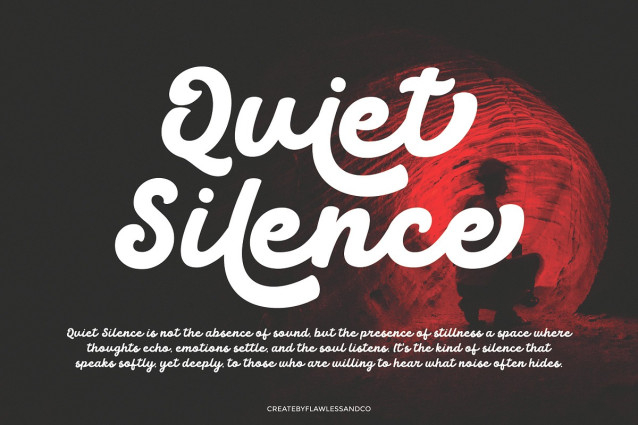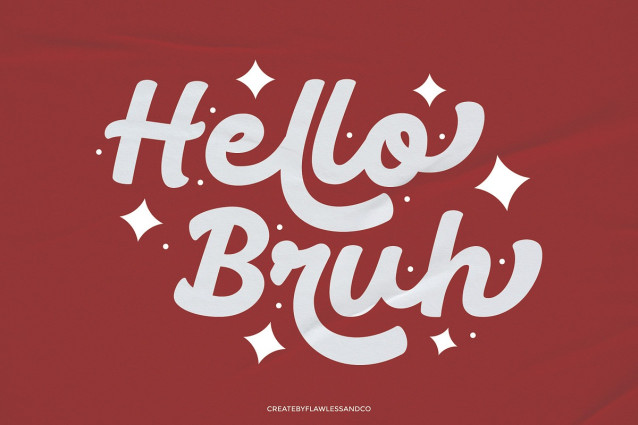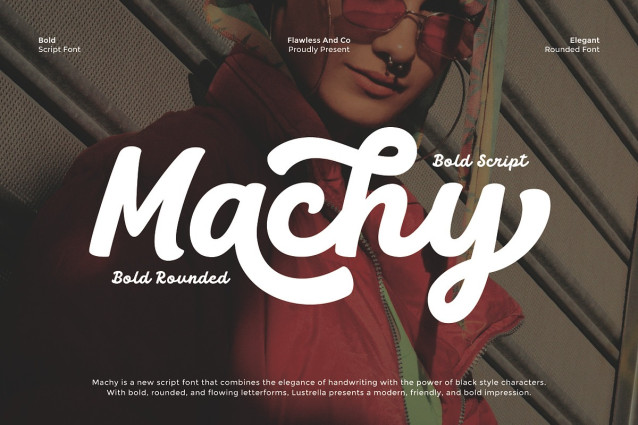
Machy Script Font
Machy Script Font is a bold script font that blends strength with smooth, flowing curves. Designed to exude confidence and personality, it offers a handcrafted feel while maintaining a modern edge. The bold weight ensures high visibility, while the script style adds elegance and charm—making it perfect for designs that need both impact and style.